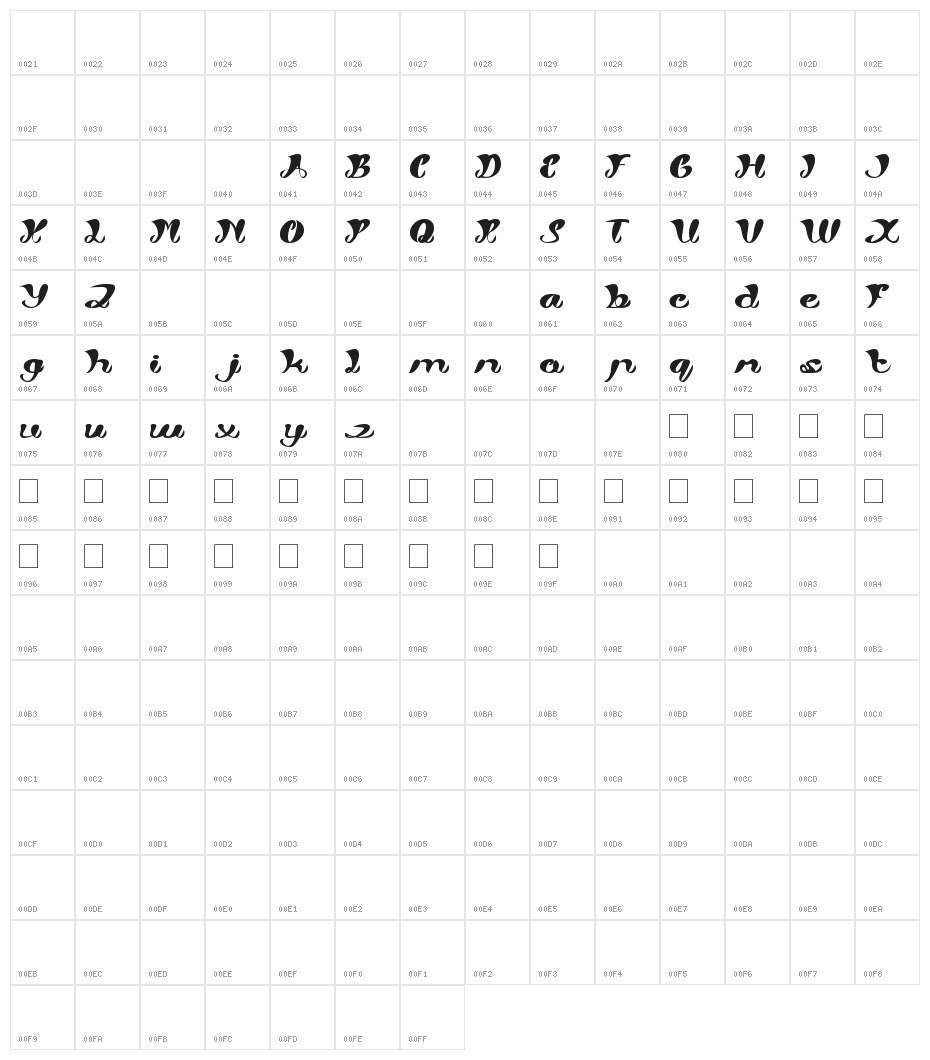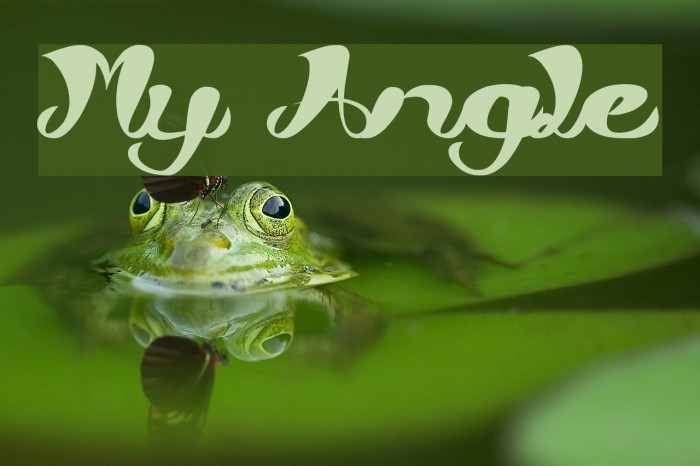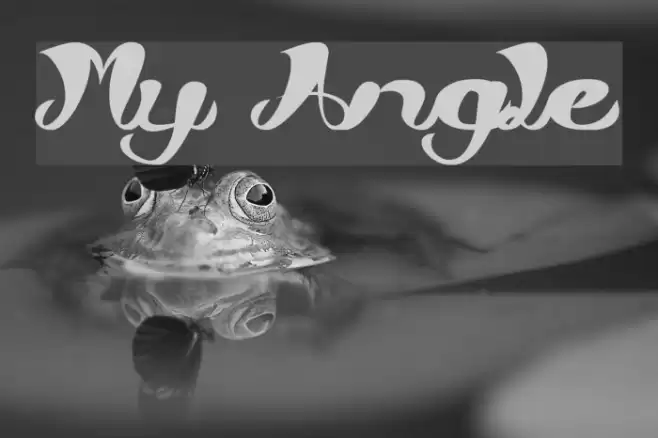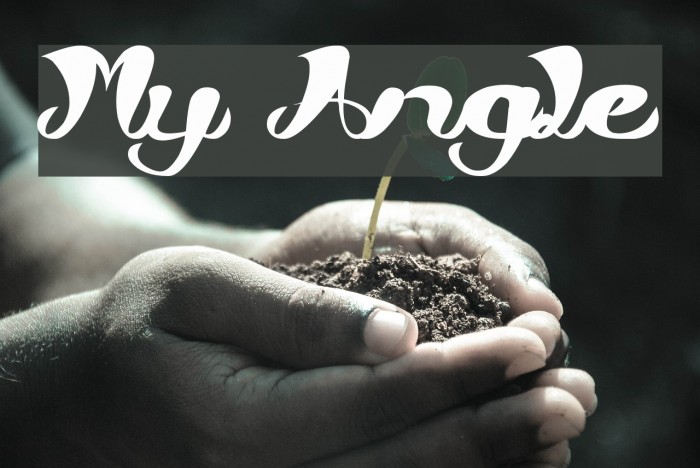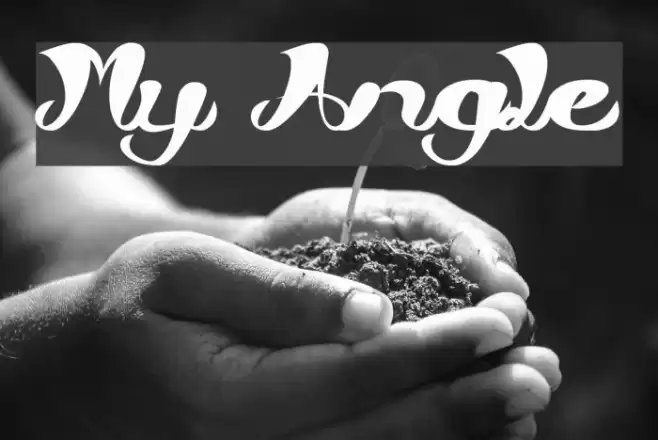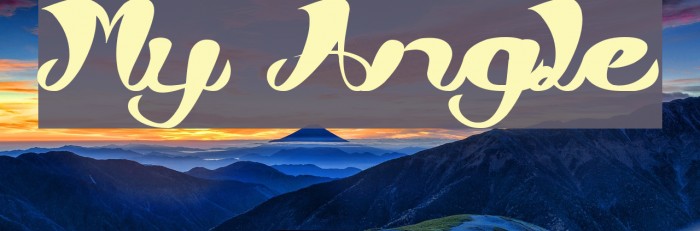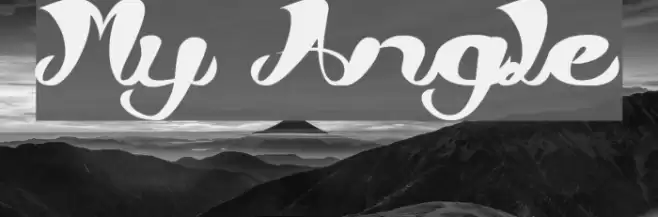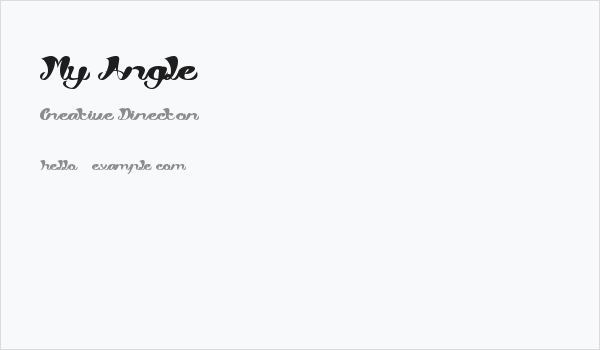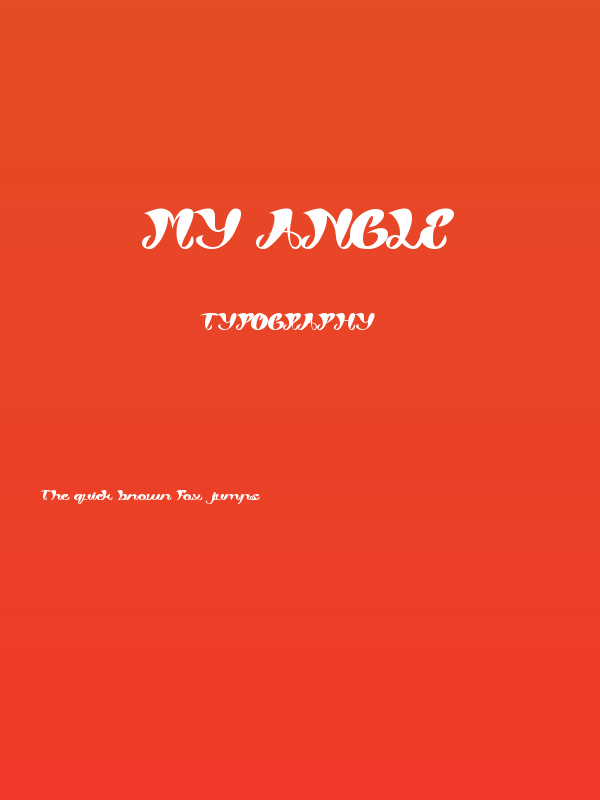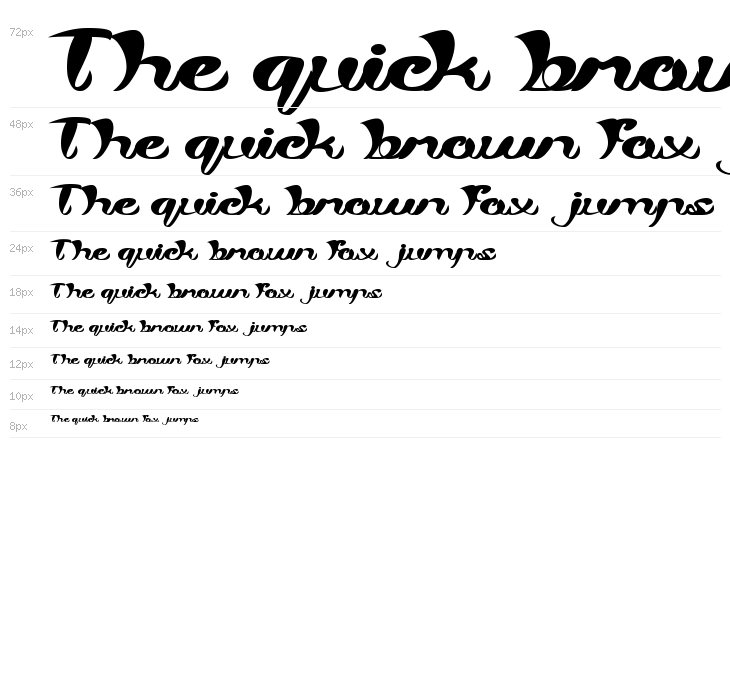
My Angle Font
My Angle Description
This font features a bold and expressive script style with a strong emphasis on fluidity and movement. The characters are intricately designed with elegant curves and swashes, creating a sense of dynamism and artistic flair. The uppercase letters are particularly striking, with each character exhibiting unique flourishes that enhance its decorative appeal. The lowercase letters maintain the same level of intricacy, ensuring consistency throughout the typeface. This font's distinct style makes it suitable for projects that require a touch of elegance and creativity.